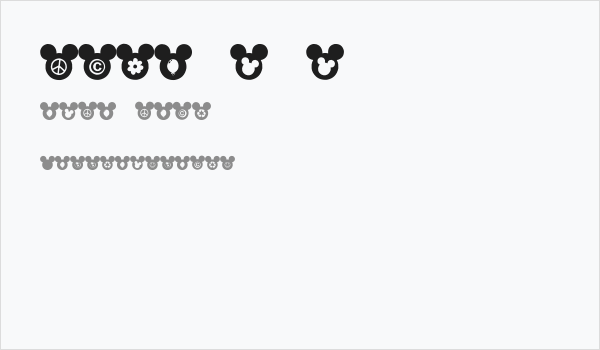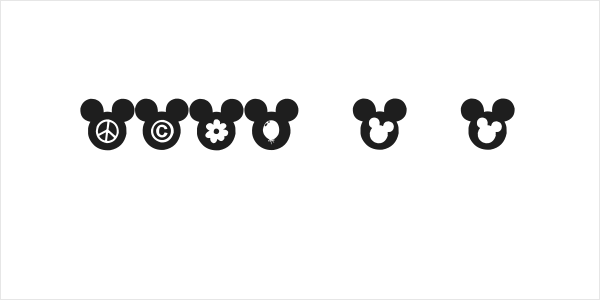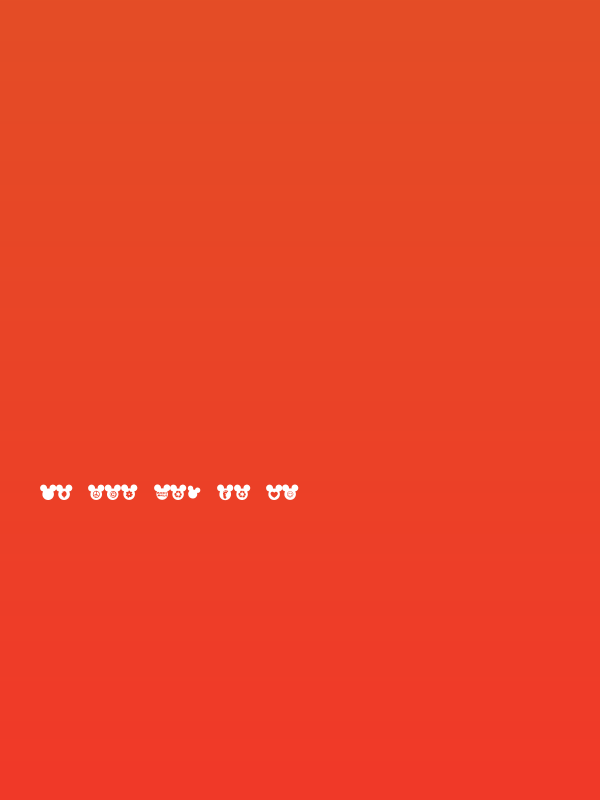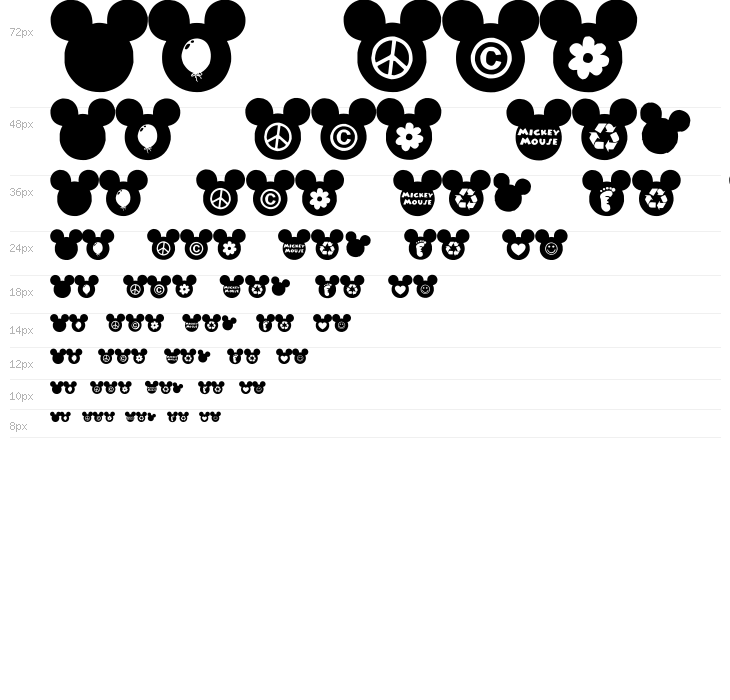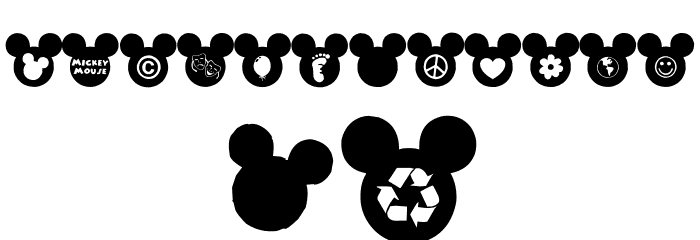
Mickey Ears Extra Font
Mickey Ears Extra Description
This is not a valid font. The image contains a series of decorative icons shaped like a well-known character's silhouette, each filled with different symbols or designs. These are not typographic characters and do not form a complete alphabet or numeric set.
| Use Case | Decorative elements |
| Proposed Projects | These icons could be used for themed decorations, party invitations, or custom merchandise. |